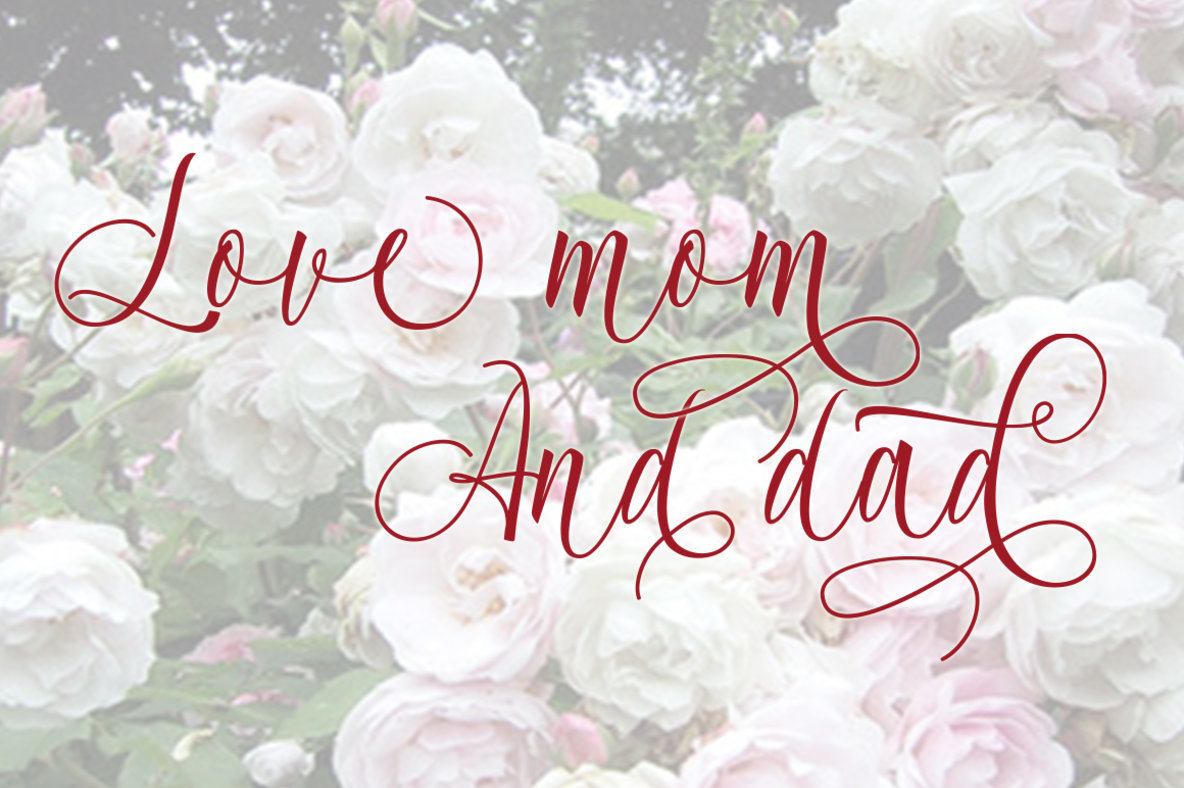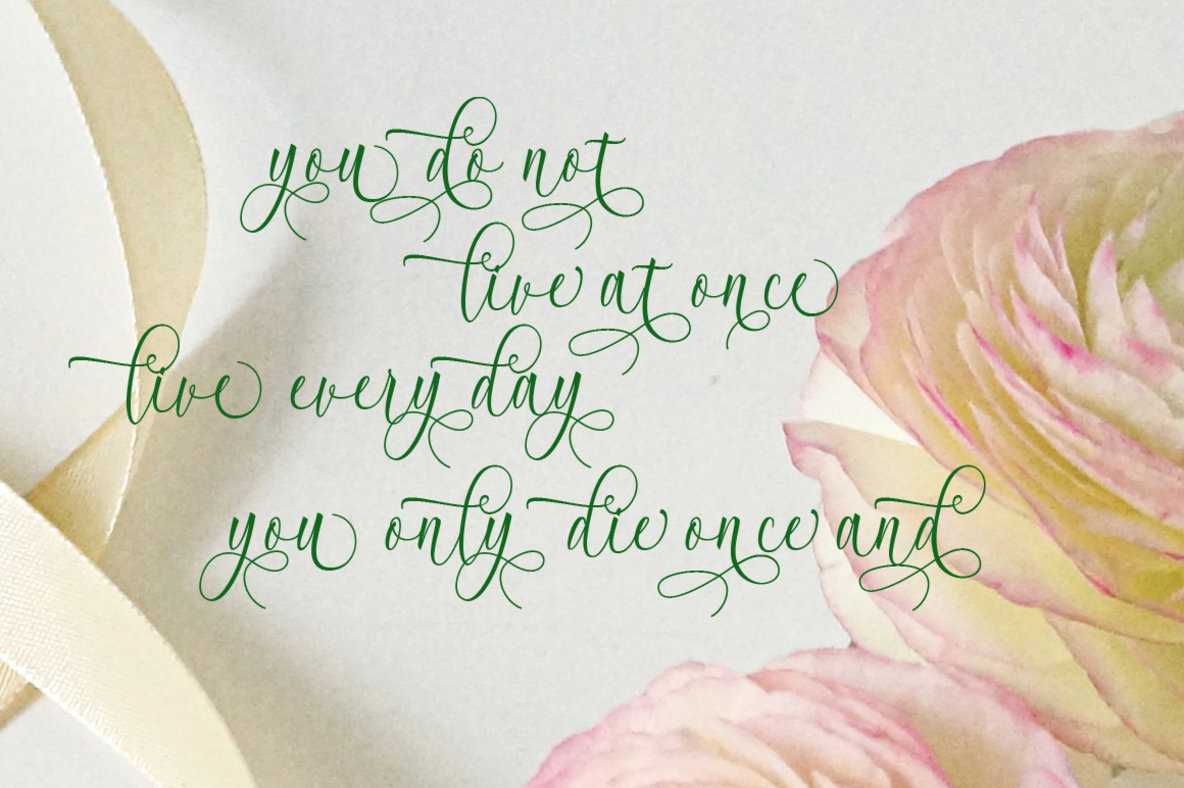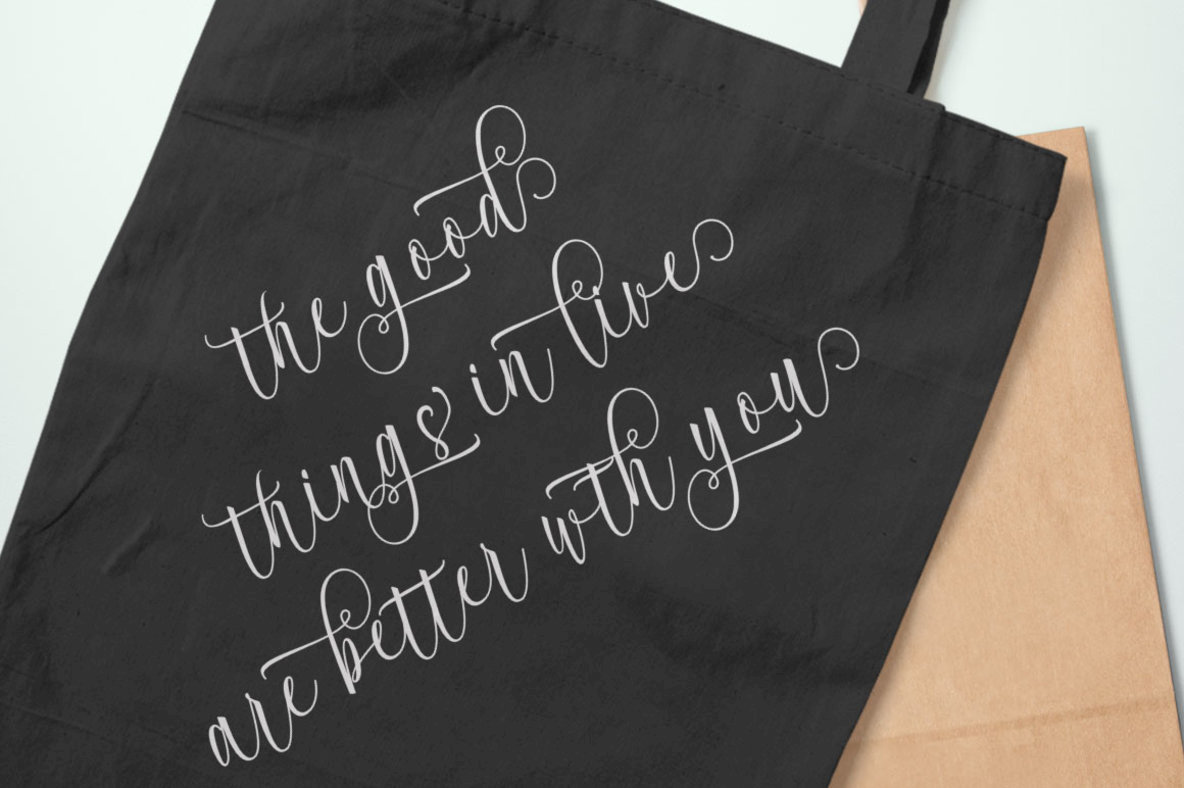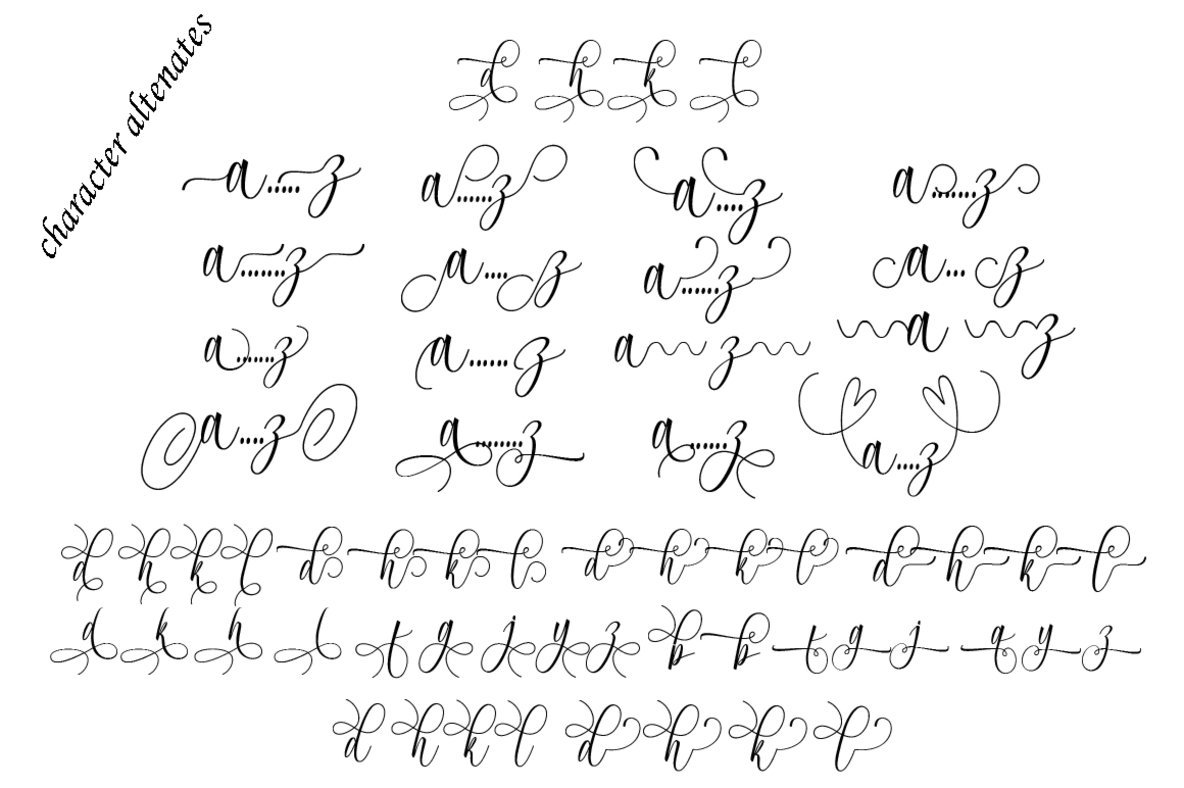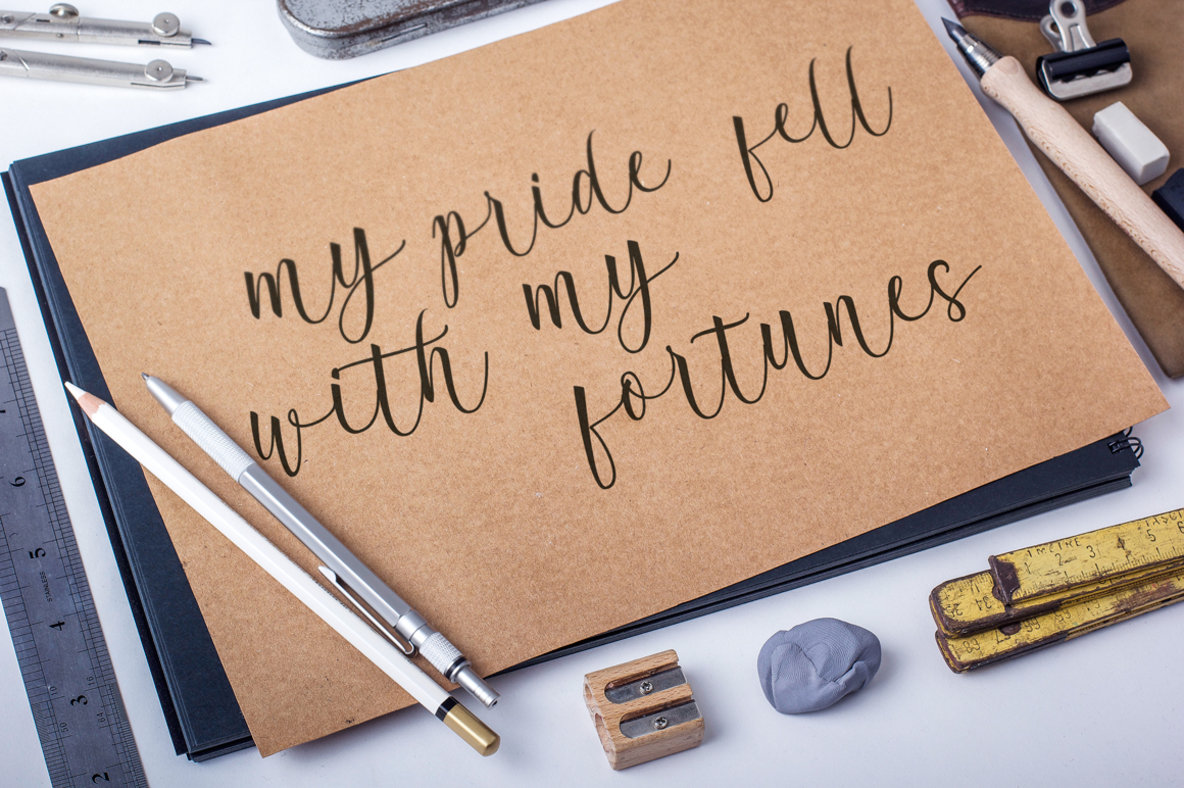
Acrobad Script Font
Acrobad Script captures a fluid elegance reminiscent of classic calligraphy. Its varying baseline and smooth lines lend a sophisticated touch to a variety of projects, including logos, wedding invitations, signage, posters, and more. Acrobad Script is compatible with various design software, including Adobe Photoshop, Adobe Illustrator, Adobe InDesign, Corel Draw, and Microsoft Office. Its robust feature set makes it a versatile tool for designers seeking a classic yet distinctive style.Acrobad Script: A Fluid Calligraphy Font